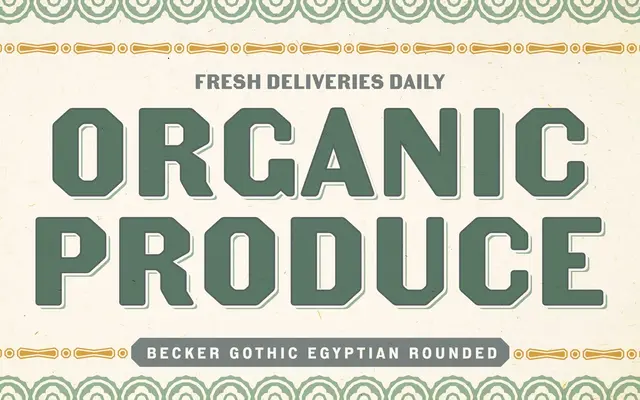
The Becker Gothics
Dunwich Type · James Puckett
Five display faces reviving the ornamental gothic alphabets of George Becker's 1854 lettering manual, designed for vintage engraving, sign, and wood-type aesthetics.
James Puckett drew this quintet from the gothic alphabets in George Becker's 1854 lettering manual Ornamental Penmanship, each voice evoking a different facet of nineteenth-century American print culture: engraving, lithography, signage and wood type. Each font ships with 23 PUA-encoded ornaments, making the set self-contained for period-accurate layouts. Available both through I Love Typography and on Adobe Fonts.
A quintet of decorative display faces reviving nineteenth-century American gothic lettering traditions; the ornamental, period-specific character places them firmly in the display category with a decorative gothic subcategory.